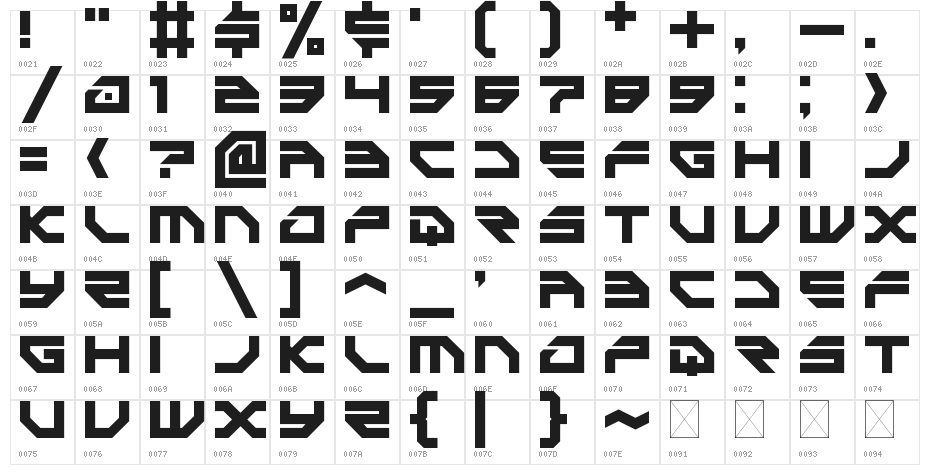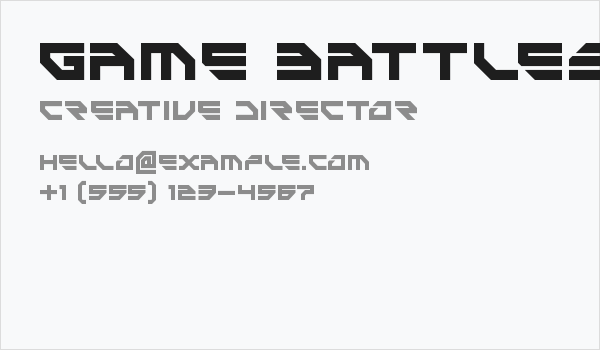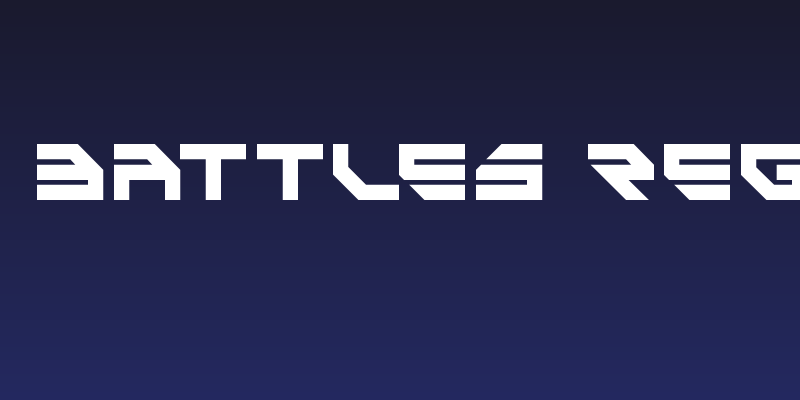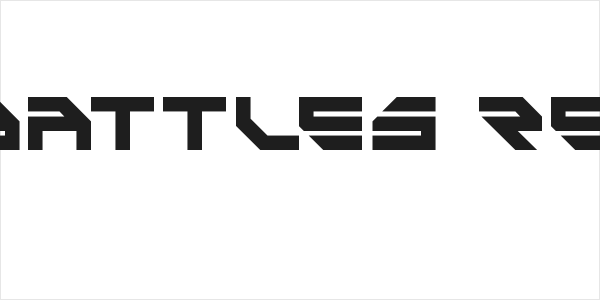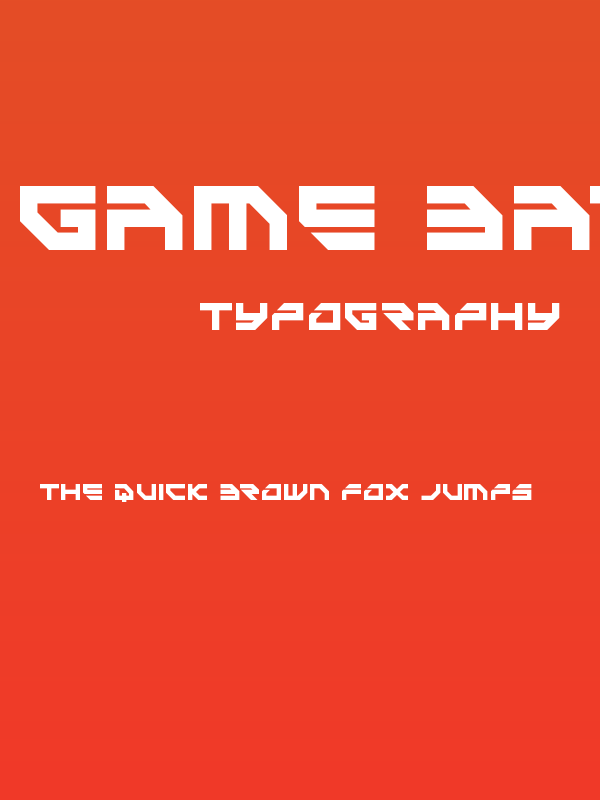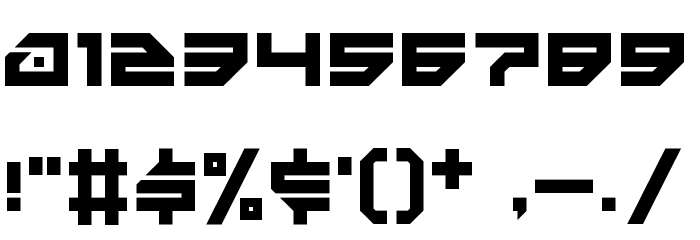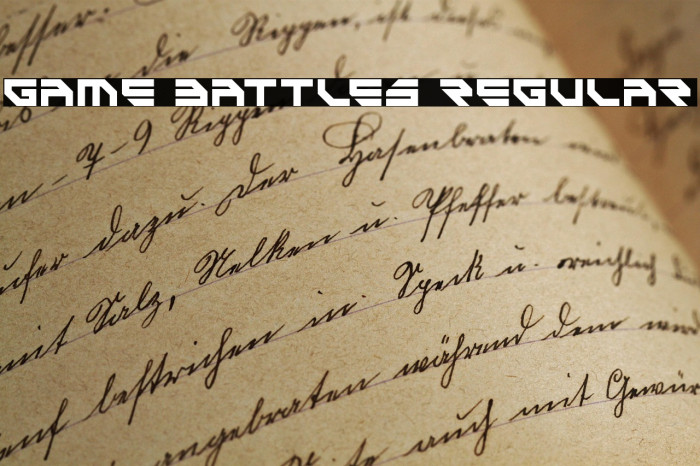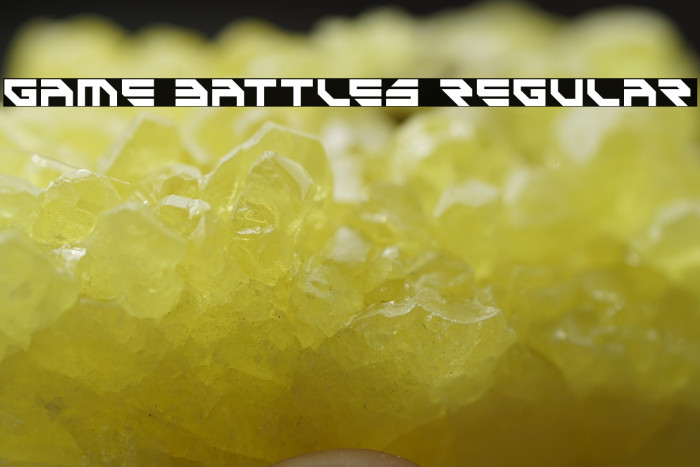
Game Battles Regular Font
Game Battles Regular Description
This font features a bold, geometric design with a futuristic and digital aesthetic. The characters are constructed with sharp angles and straight lines, giving it a strong, assertive presence. The uppercase and lowercase letters maintain a consistent style, with a uniform height that enhances readability. Numbers and special characters are designed to match the angular theme, providing a cohesive look across all glyphs. The font's unique style makes it suitable for projects that require a modern, tech-inspired appearance.